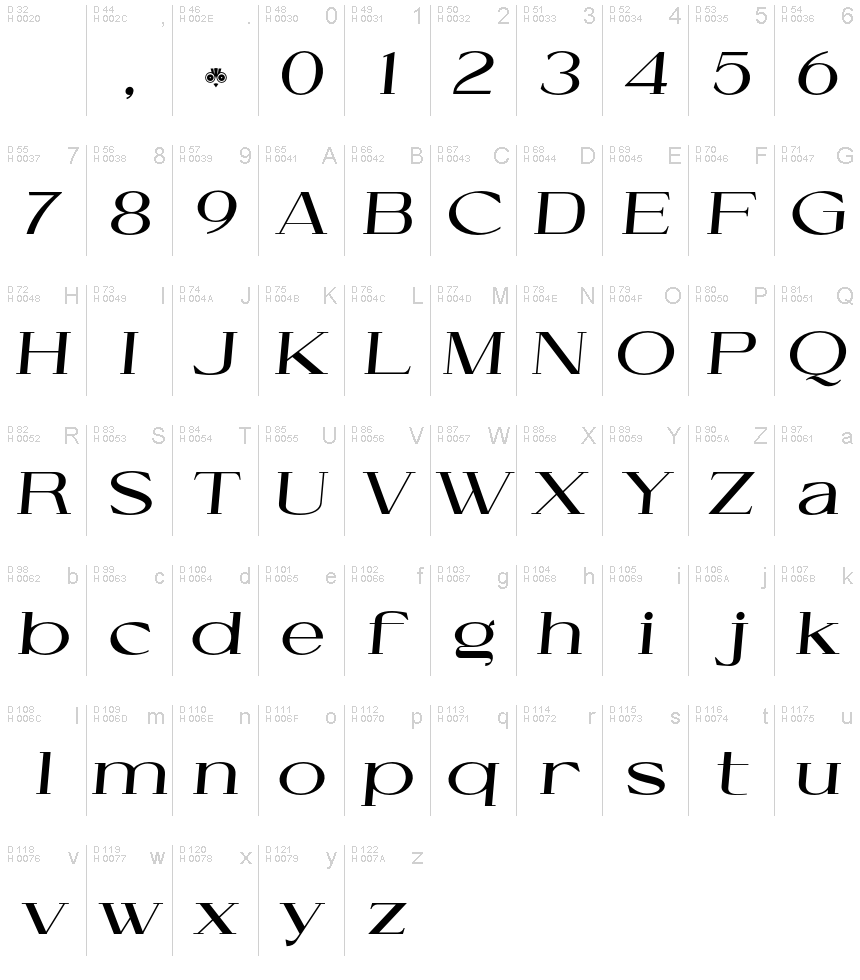
Cellofy Bold Expanded Italic font, part of the Cellofy family by Owlking Project, captivates with its distinct serif elegance and expanded form. This free font for personal use stands out with its bold and italicized flair, offering a unique blend of tradition and modernity. The expanded width adds a sense of grandeur and readability, making it perfect for eye-catching headlines or sophisticated branding projects.
Whether you're designing an elegant invitation or a striking poster, this font brings versatility and style to the forefront. Its free download availability makes it an accessible choice for designers seeking to add a touch of sophistication without compromising on creativity.
Explore the Cellofy Bold Expanded Italic font as your go-to solution for adding character and impact to various design contexts.
Whether you're designing an elegant invitation or a striking poster, this font brings versatility and style to the forefront. Its free download availability makes it an accessible choice for designers seeking to add a touch of sophistication without compromising on creativity.
Explore the Cellofy Bold Expanded Italic font as your go-to solution for adding character and impact to various design contexts.